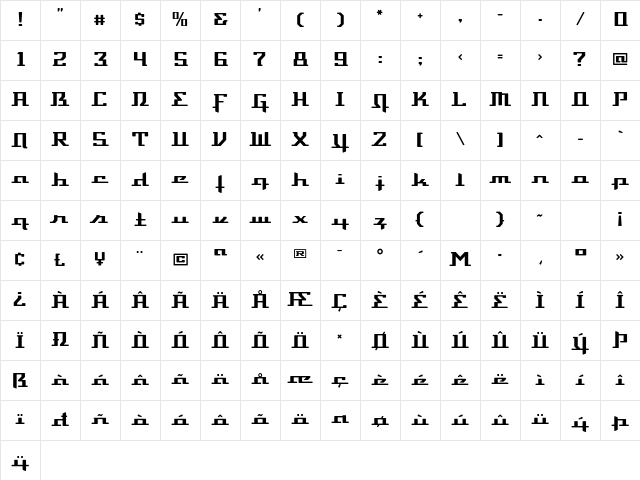
DevilleThruster DeluxeOne Free Font
DevilleThruster DeluxeOne
Style: DeluxeOne
Design Context for DevilleThruster
DevilleThruster is a composed and adaptable typeface that performs quietly and consistently across a wide range of design contexts.
Pro Tip: Use DevilleThruster in both headline and body roles to test its range before committing to a single application.